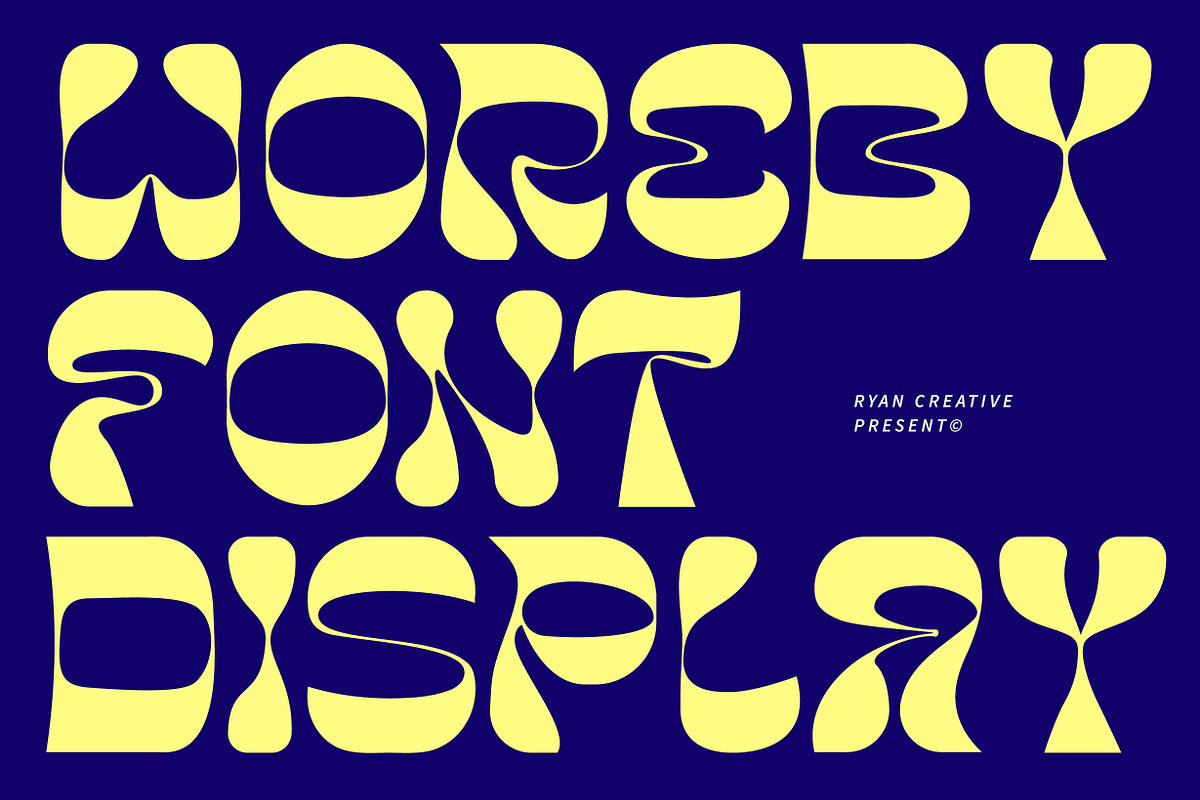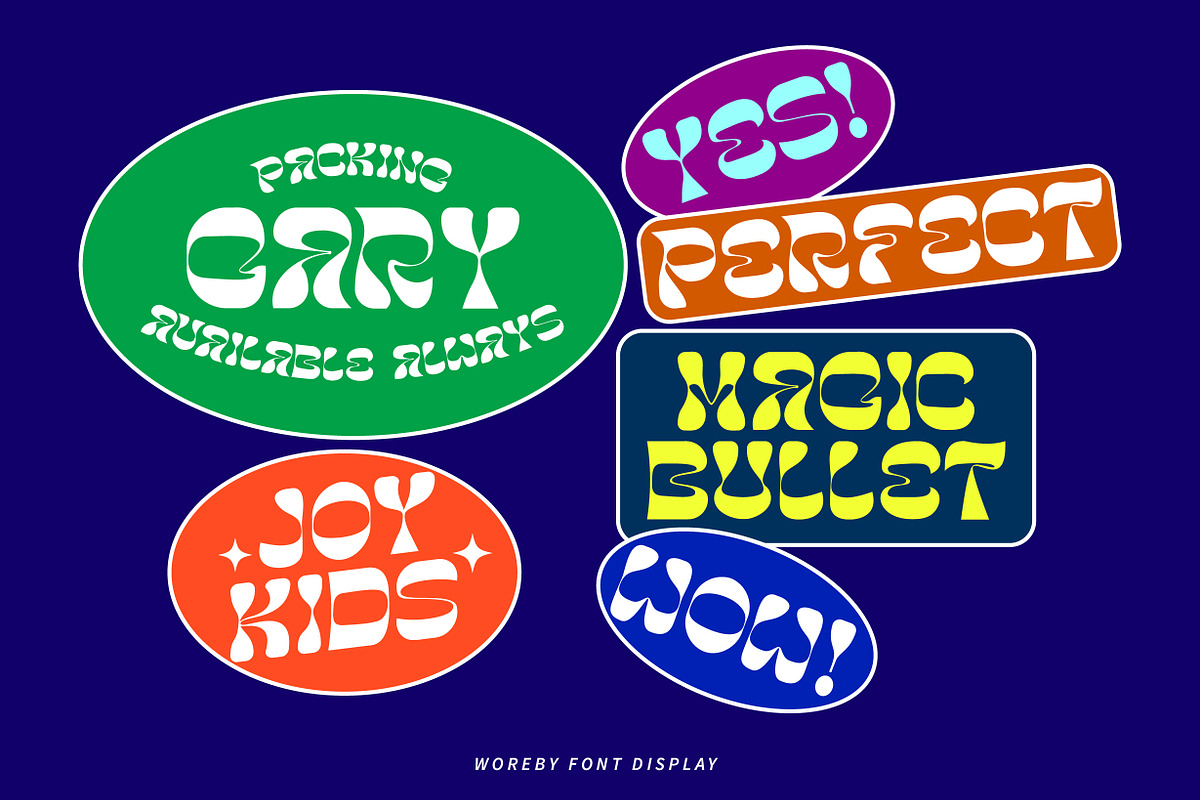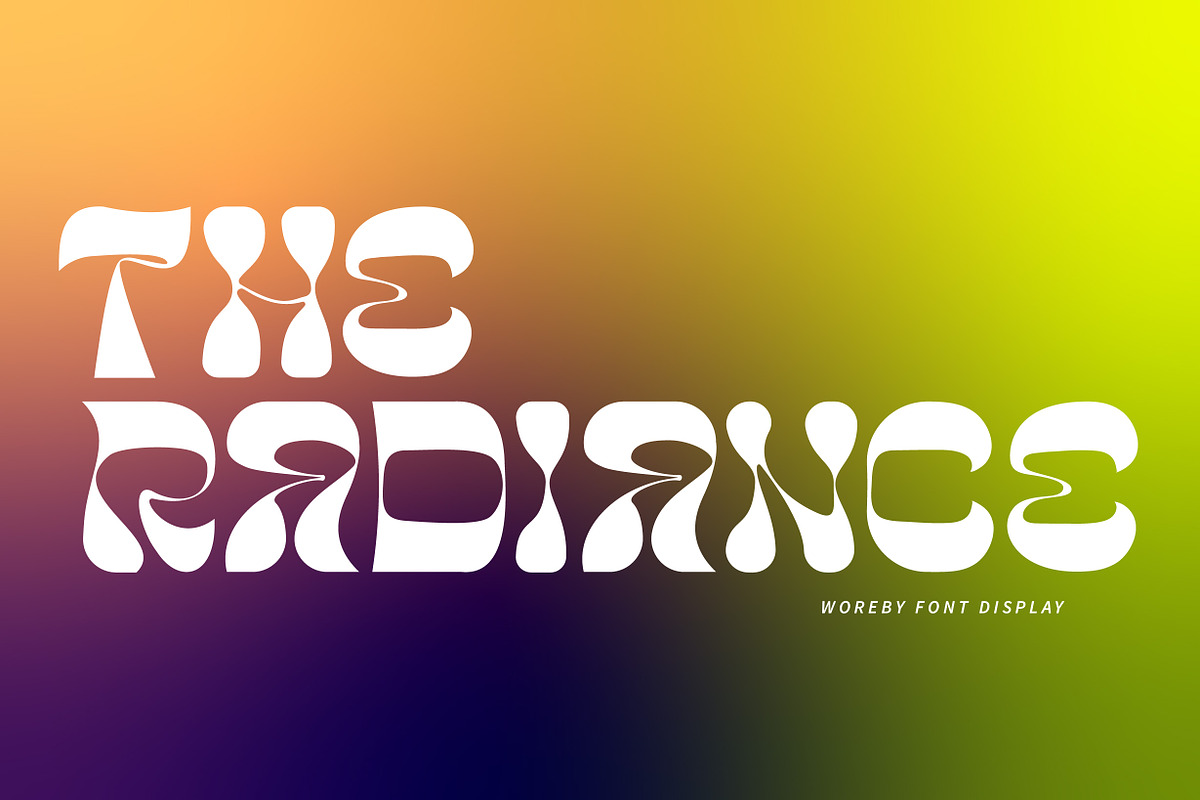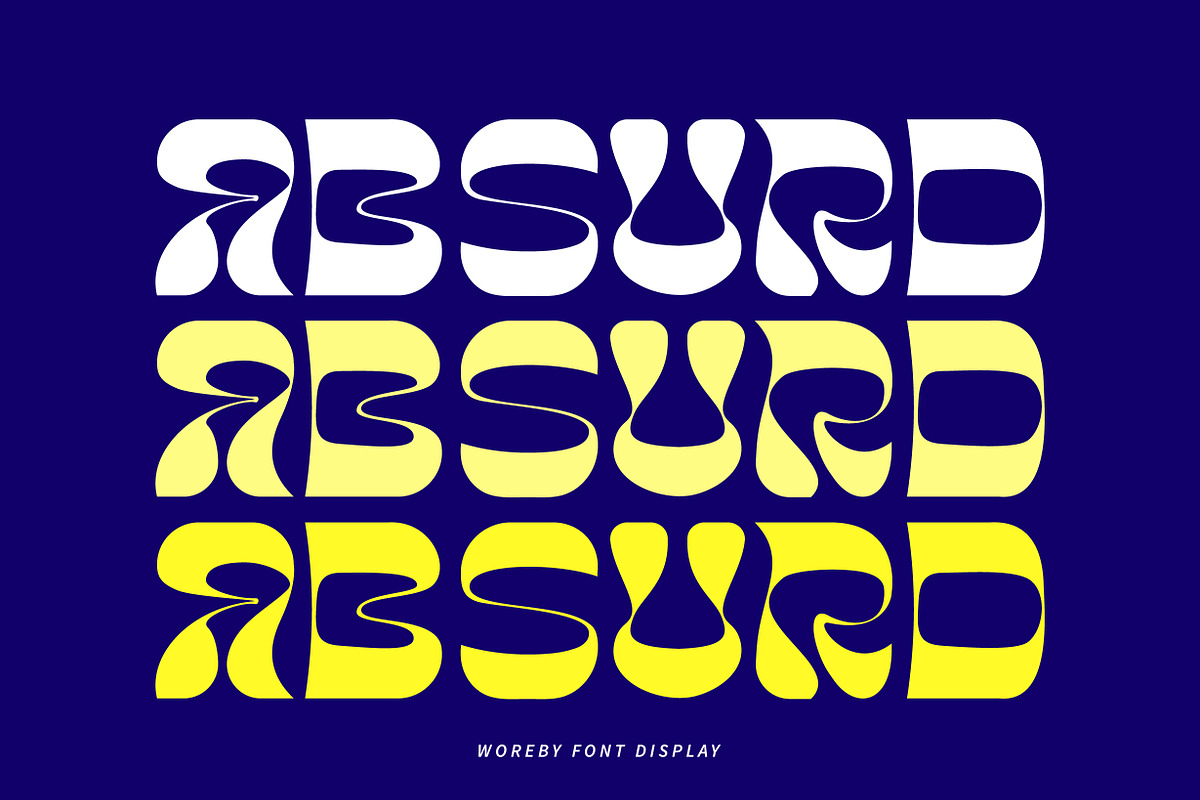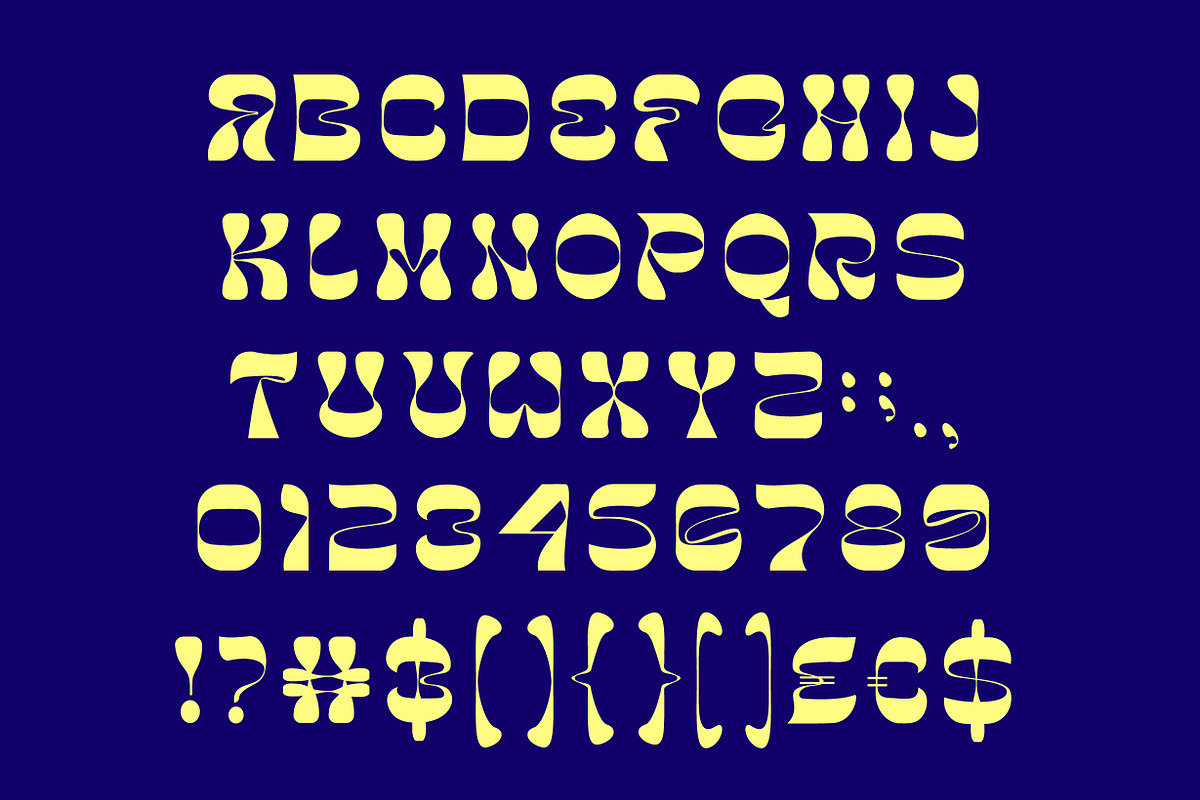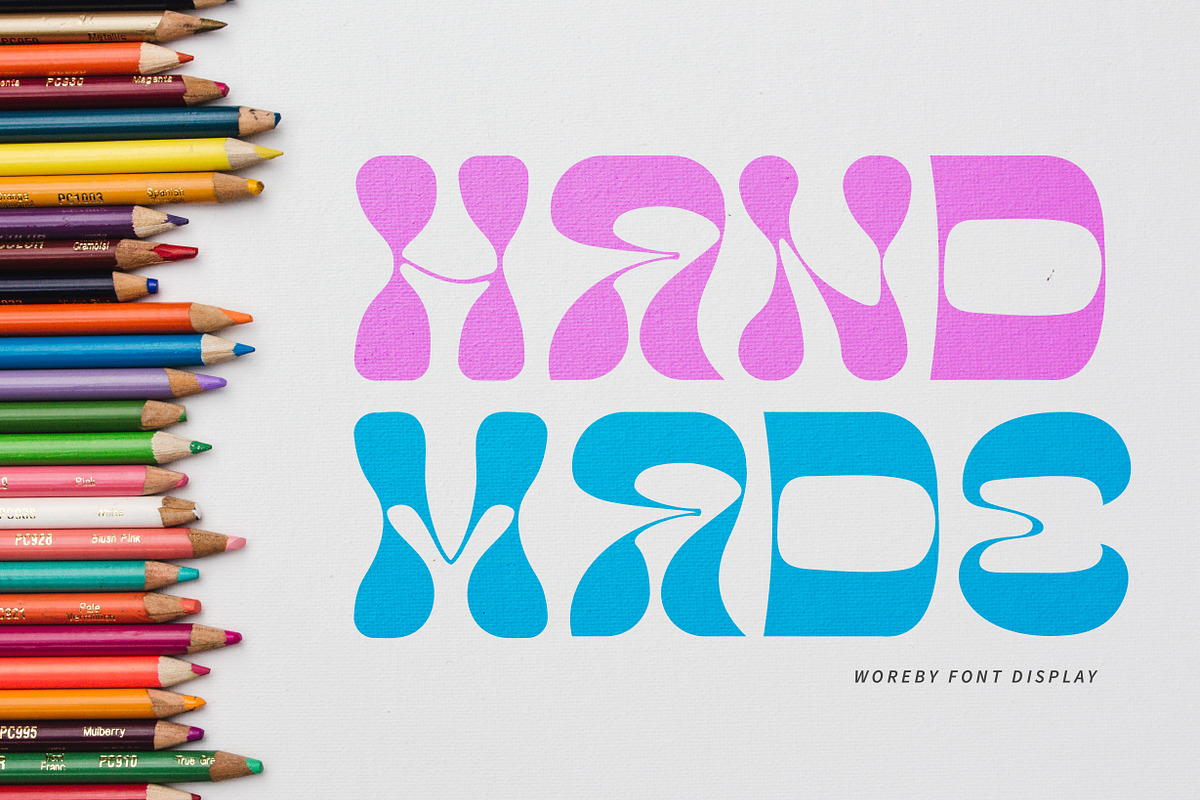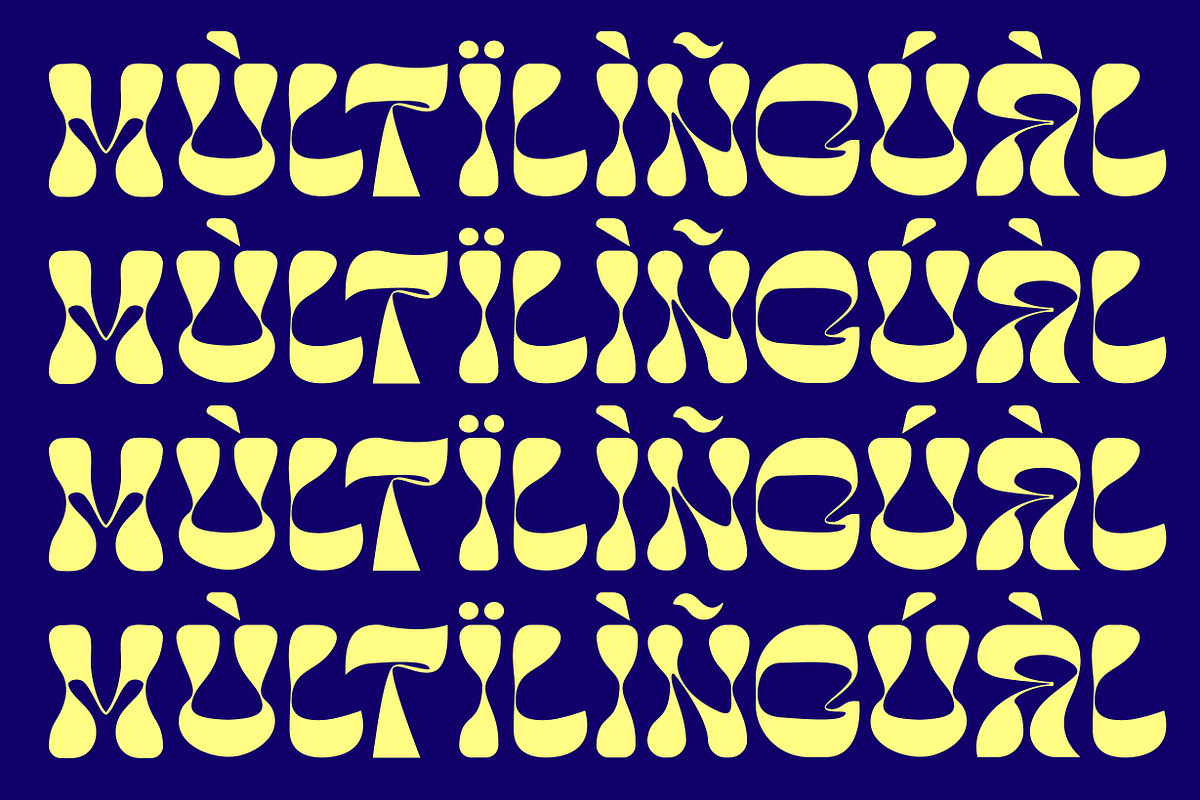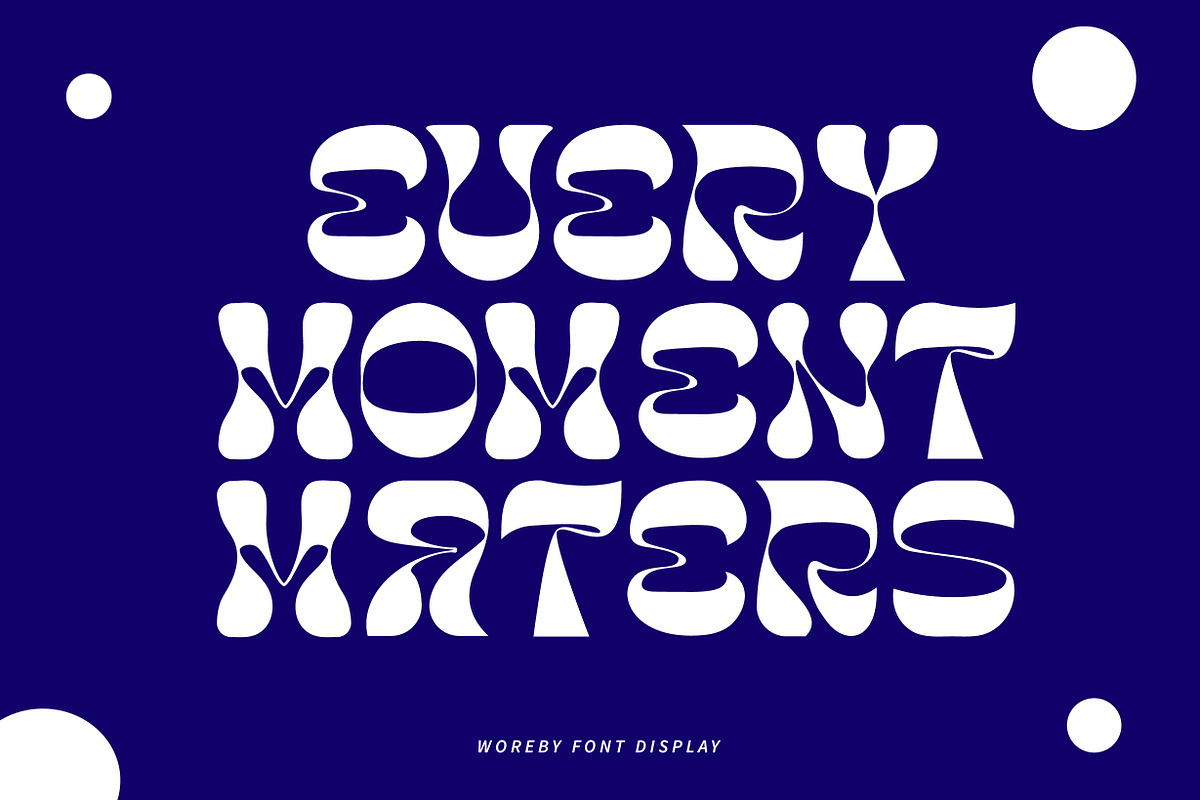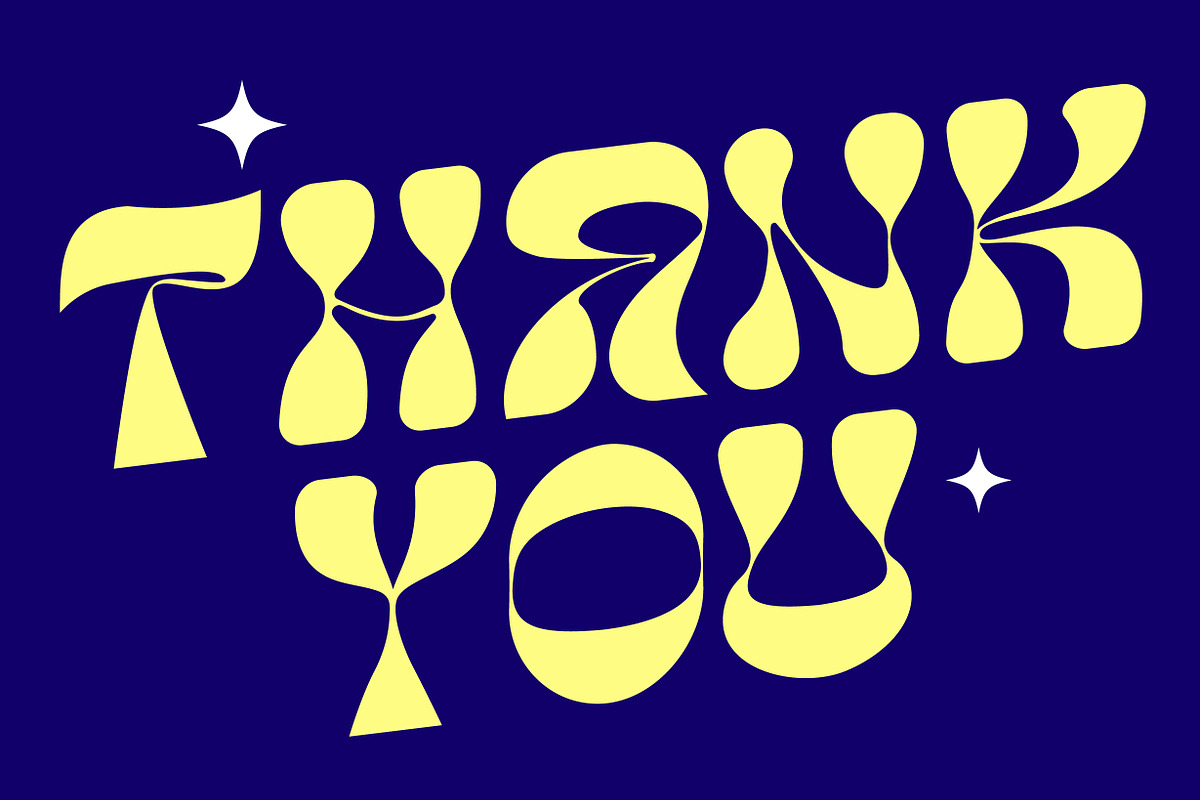
Woreby - Display Font
Creative greetings… Introducing the Woreby font which has a unique looking design. This font has additional large and small arches. You can use Woreby in modern and contemporary designs, and is suitable for use in various media such as stickers, posters, covers, typography and other digital media.
FEATURES;
- Uppercase.
- Support Foreign, Numbers and Punctuation.